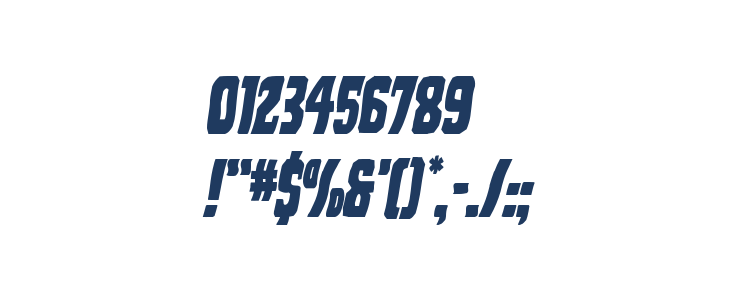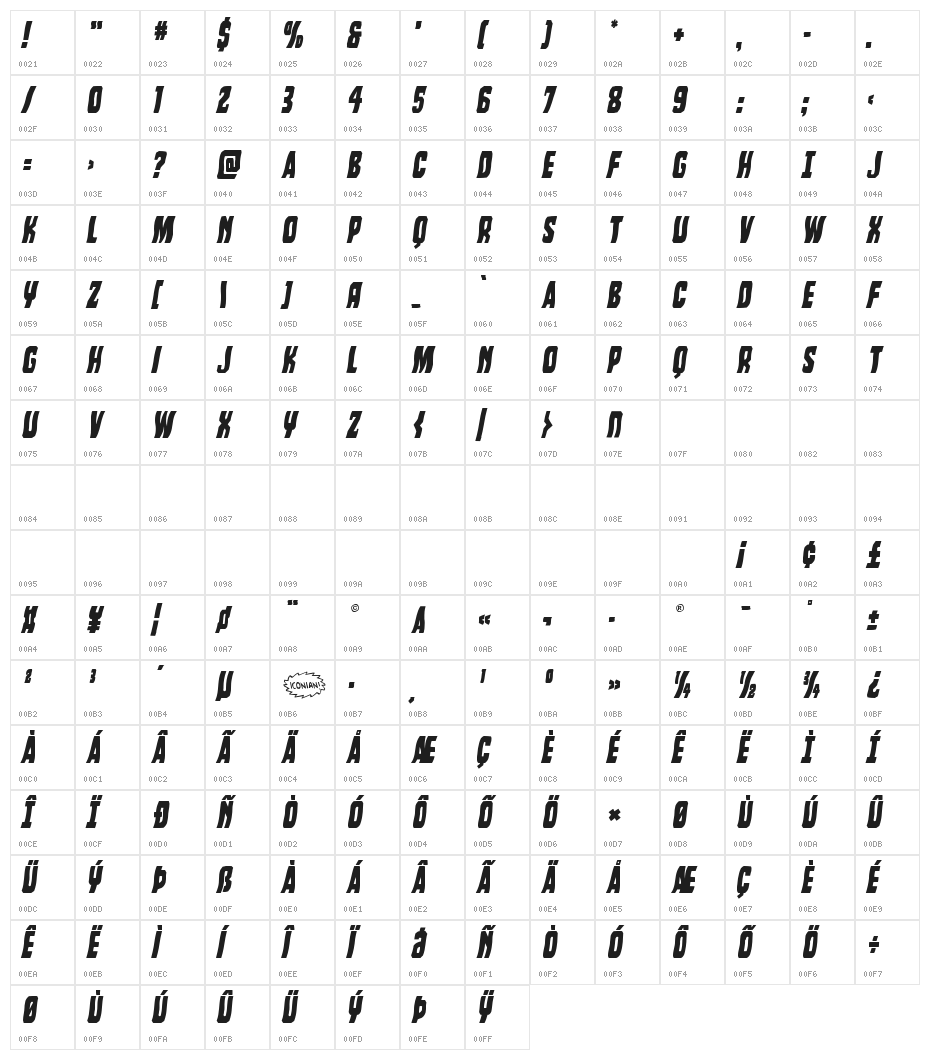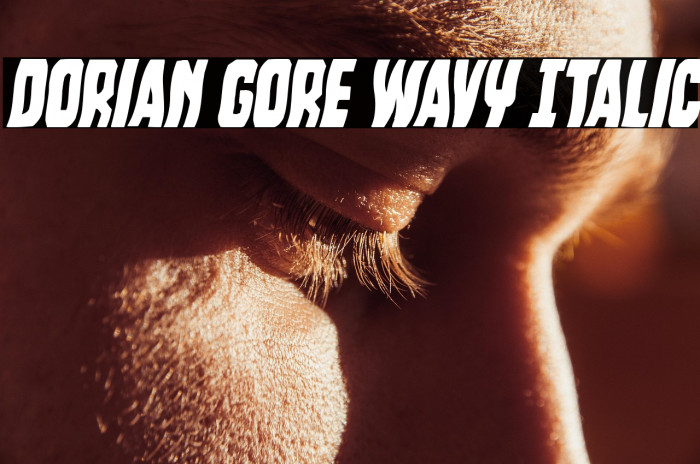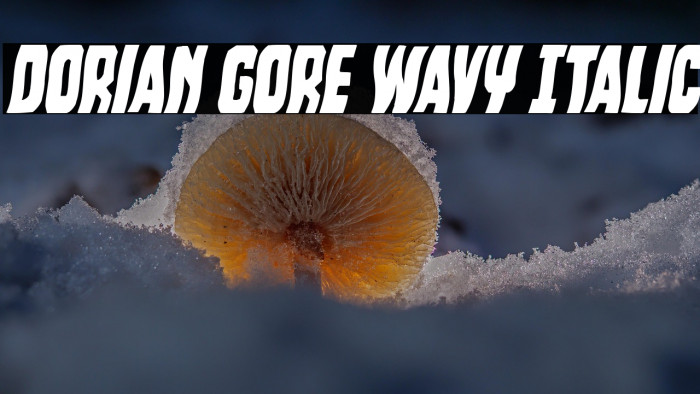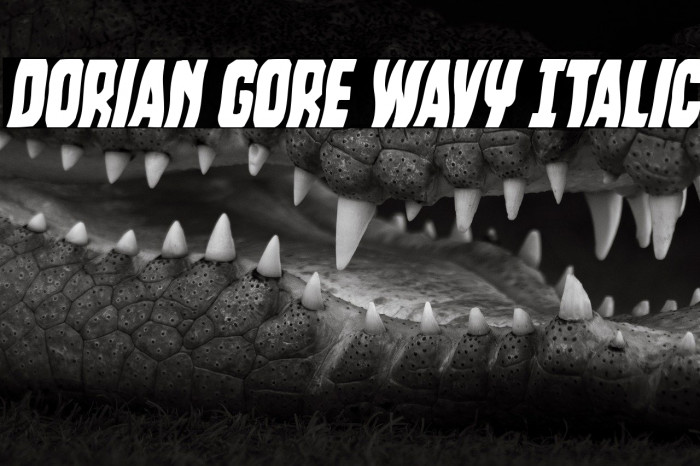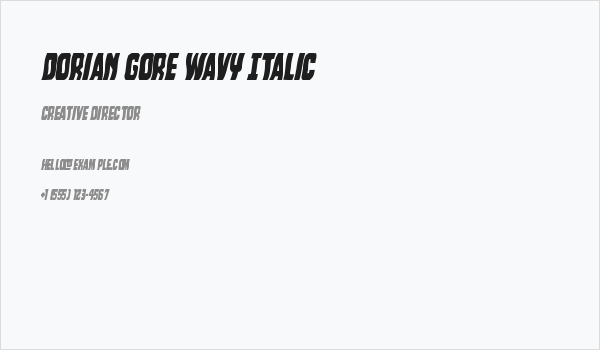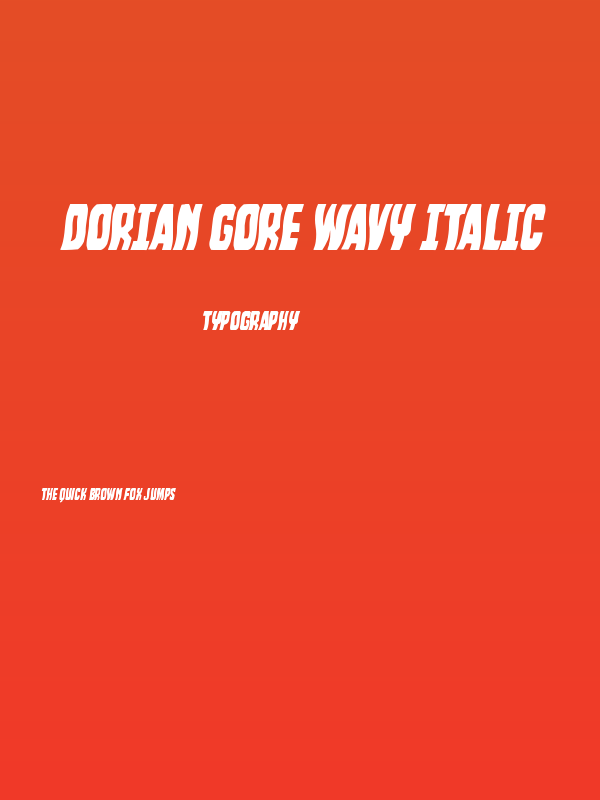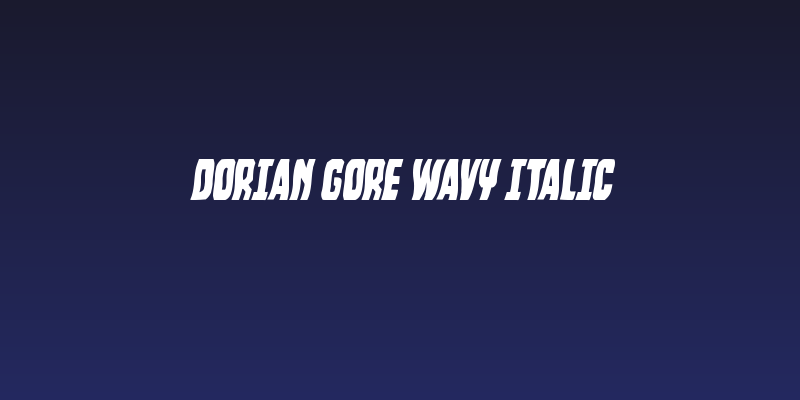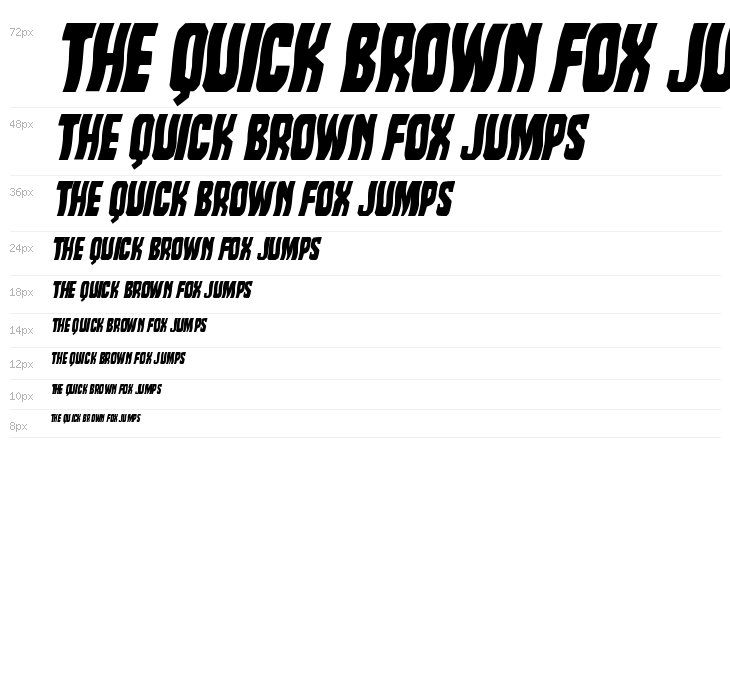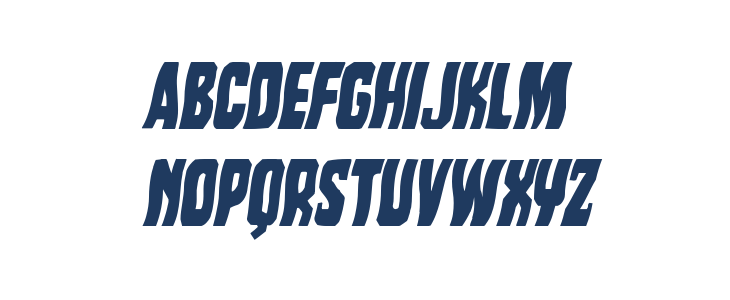
Dorian Gore Wavy Italic Font
Dorian Gore Wavy Italic Description
This font features a bold and dynamic style with a wavy, italicized form that gives it a sense of movement and energy. The uppercase and lowercase letters are designed with a consistent slant, enhancing the italic effect. The numbers and special characters maintain the same boldness, ensuring uniformity across all characters. The strokes are thick, providing a strong visual impact, while the wavy design adds a unique, playful touch. This font is ideal for projects that require a bold statement or a creative flair.
| Proposed Projects | Ideal for posters, logos, headlines, and any creative projects needing a bold, eye-catching font. |